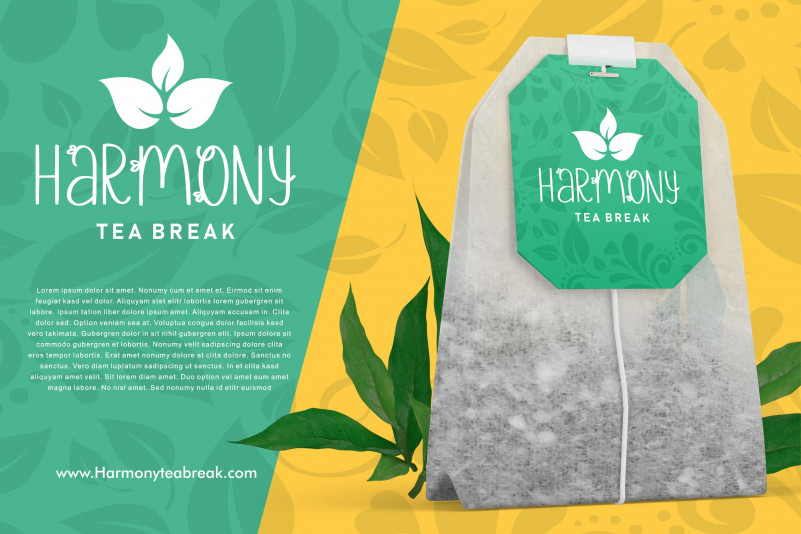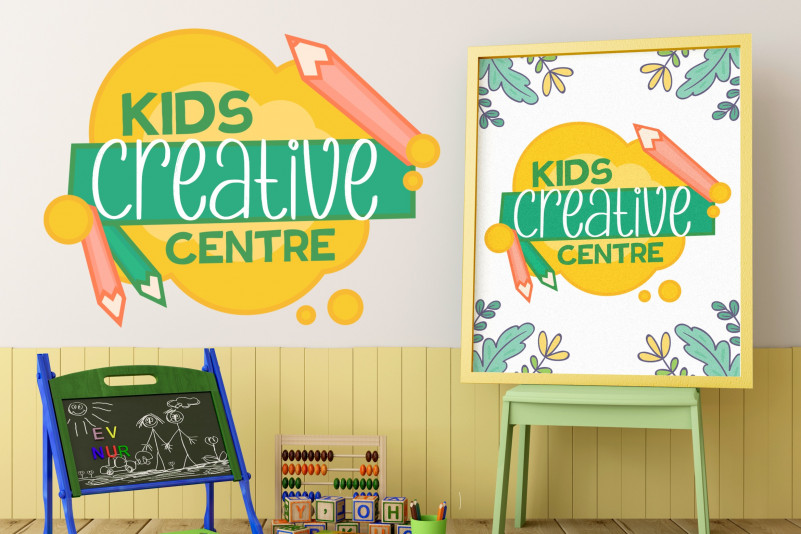
Angeline Beautyfuly Display Font
Angeline Beautyfuly is a cool and trendy-looking display font that is great for logos, badges, clothing, posters, and other projects that need to stand out from the crowd. Add this font to your favorite creative ideas, and notice how it makes them come alive!